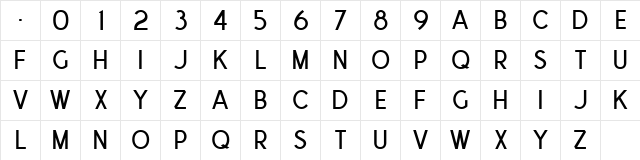
Metalarts 105 CD Gothic Regular
Design Context for Metalarts 105 CD Gothic Typeface
Metalarts 105 CD Gothic takes a clean, functional approach — its unadorned letterforms prioritise legibility and work reliably across screen and print environments.
Font Pairing: Works well alongside a characterful serif or display font that can carry the expressive load while Metalarts 105 CD Gothic handles the functional copy.
Pro Tip: Pair Metalarts 105 CD Gothic with a display or serif font for headlines — its neutral character makes it an excellent supporting player in complex typographic systems.